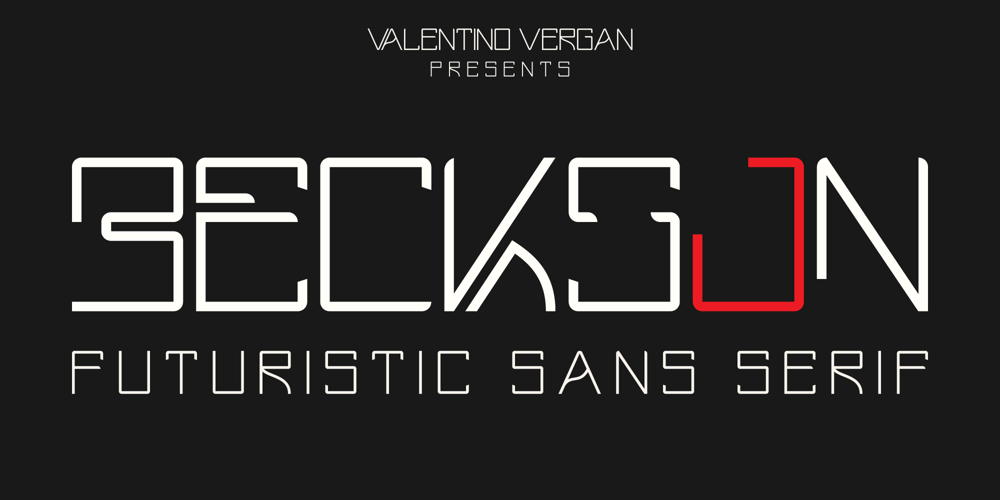
Beckson
Beckson font
Beckson Font Family was designed by Martin Katibi and published by Valentino Vergan. Beckson contains 1 styles and family package options. Beckson is a futuristic unique sans serif typeface, which comes with creative alternative letters. Beckson is designed with minimalist distinctive shapes that make it very eye catching. Beckson is a fantastic typeface for modern and futuristic designs, you can use it for a wide range of projects.